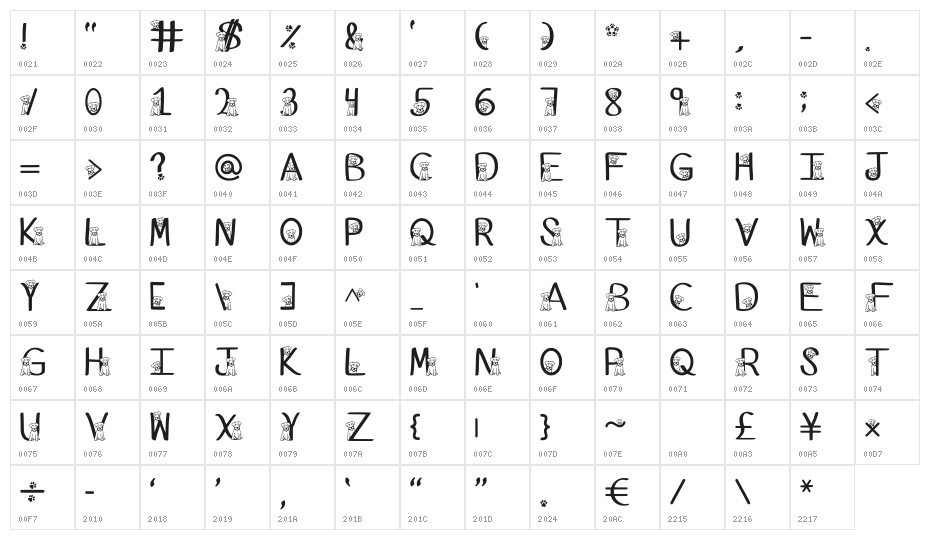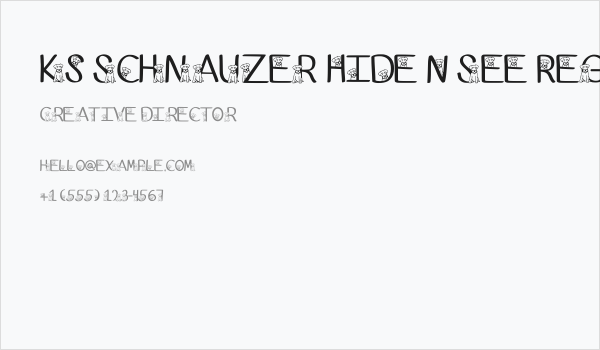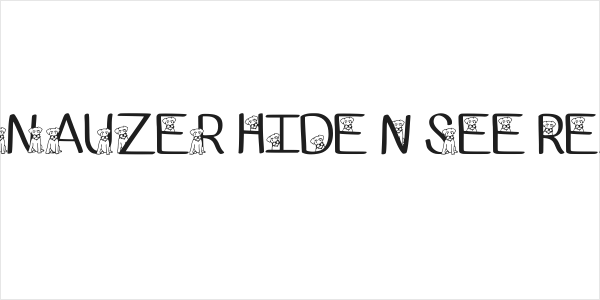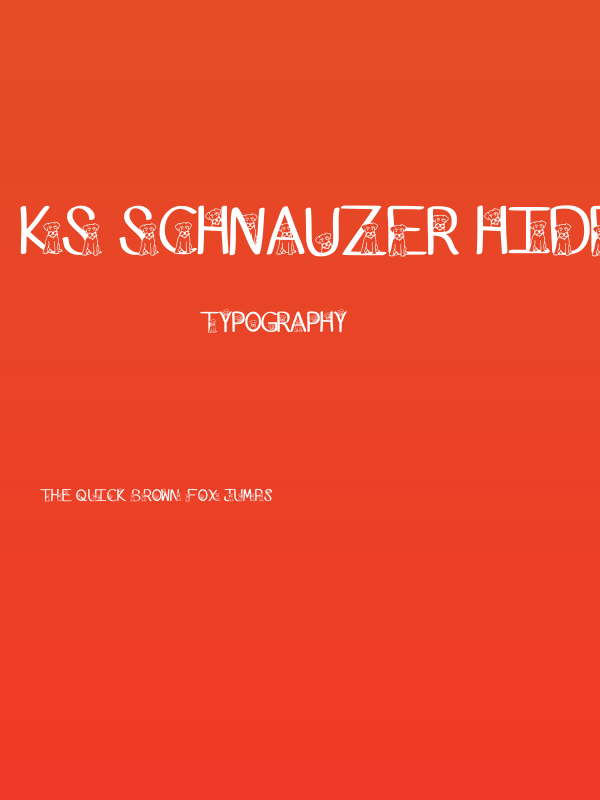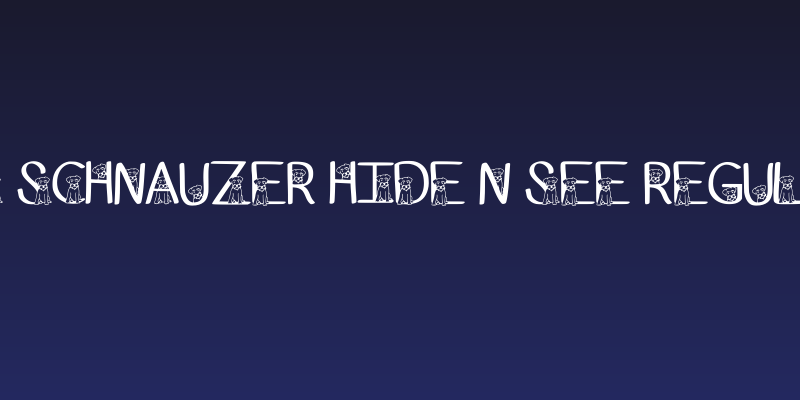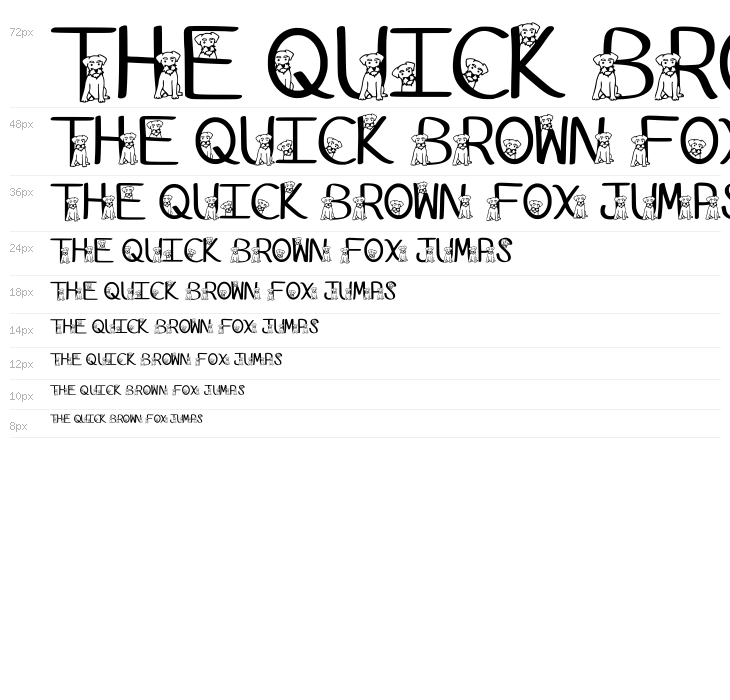
Ks Schnauzer Hide N See Regular Font
Ks Schnauzer Hide N See Regular Description
This playful and whimsical font features a unique design where each letter is accompanied by a small dog illustration, adding a charming and lighthearted touch. The characters are bold and slightly rounded, providing a friendly and approachable appearance. The integration of the dog illustrations within the letters makes it ideal for projects that aim to convey fun and creativity. The font maintains a consistent style across uppercase, lowercase, numbers, and special characters, ensuring versatility in various design contexts.
Overall StylePlayful
Use CaseLogos, Posters, Invitations
Proposed ProjectsIdeal for children's books, pet-related branding, playful invitations, and creative posters.